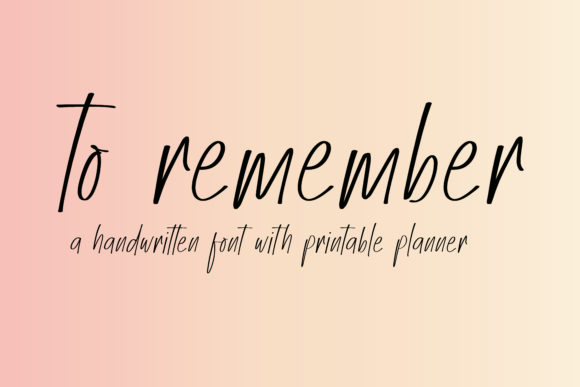
To Remember Font Review: A Versatile Script Handwritten Typeface
There is a specific moment in every branding project when the mood board is set, the color palette is locked, and you are staring at a blank artboard waiting for the typography to give the identity its soul. During a recent visual refresh for an artisanal skincare line, I found myself cycling through dozens of display typefaces that felt either too rigid or overly chaotic. That was when I tested To Remember, a simple and unique handwritten font that immediately shifted the tone of the entire project. As a brand designer who values authenticity over trend-chasing, I needed a typeface that felt human but maintained enough structure to function across packaging and digital platforms. This review shares my practical experience testing this script handwritten typeface in a real-world commercial context, moving beyond the preview image to see how it actually performs when the stakes are high.
To Remember for Wedding Invitations and Elegant Stationery Art
When evaluating To Remember against other premium fonts in the bridal and stationery niche, its balance of legibility and emotion stands out as its primary strength. The product description highlights its suitability for gorgeous wedding invitations and beautiful stationery art, and my testing confirms this is where the typeface truly shines without feeling dated. In a mockup for a luxury invitation suite, the letterforms possessed a natural rhythm that mimicked genuine penmanship rather than digital perfection. The connections between characters are fluid but not distracting, allowing the eye to glide across names and dates without stumbling over excessive swashes or illegible loops.
What makes this script handwritten style particularly effective for stationery is its versatility in hierarchy. I was able to use the font for the couple’s names at a large display size while scaling it down for venue details and RSVP information without losing clarity. Many decorative fonts fall apart below 14pt, but To Remember retained its character even at smaller sizes, provided there was adequate leading. For designers creating comprehensive stationery suites, this means you can maintain typographic consistency from the save-the-date card to the thank-you note without needing to introduce a secondary script for supporting text. The organic texture adds a layer of warmth that flat vector scripts often lack, making printed pieces feel tactile and intentional.
Using To Remember for Eye-Catching Social Media Graphics
Digital applications require a different set of performance metrics, and using To Remember for eye-catching social media graphics proved that this script handwritten face translates surprisingly well to screens. When designing Instagram carousel templates and Pinterest pins for the skincare brand, I needed a headline font that could stop the scroll without sacrificing readability on mobile devices. The x-height of To Remember is generous enough to remain crisp against busy photographic backgrounds, which is a common failure point for more delicate calligraphy fonts. I tested white text overlays on textured product photography and dark text on minimalist beige backgrounds; in both scenarios, the weight distribution held up without pixelating or blurring.
For content creators and social media managers, the "simple" aspect of this typeface is actually a functional asset. Complex scripts often compete with visual content, but To Remember acts as a supportive frame. It adds personality to quotes, announcements, and promotional graphics without overwhelming the message. During my testing, I found that pairing it with a clean geometric sans serif created a modern editorial look that felt approachable yet polished. This combination is essential for brands that want to convey handmade authenticity while maintaining professional digital standards. If you are designing templates for Canva or Adobe Express, this font provides that bespoke aesthetic that elevates generic layouts into cohesive brand assets.
To Remember in Packaging Design and Brand Identity Systems
The true test of any display typeface is its application in physical packaging design, where To Remember demonstrated remarkable adaptability within a broader brand identity system. On a 2oz glass dropper bottle label, space is at a premium, and legibility is non-negotiable. I used the font for the product name "Botanical Renewal Serum," and the result was a label that felt crafted rather than manufactured. Unlike highly ornate scripts that require significant horizontal space, the relatively condensed nature of To Remember allowed for longer product names without awkward tracking adjustments. This spatial efficiency is crucial for SKUs with varying name lengths, ensuring the packaging system remains consistent across an entire product line.
Beyond the label itself, I integrated this script handwritten typeface into the unboxing experience, printing it directly onto tissue paper and shipping boxes. The font’s inherent warmth reinforced the brand’s artisanal positioning at every touchpoint. However, designers should note that while To Remember excels as a primary display font for logos and headlines, it should not be used for regulatory text, ingredient lists, or body copy. Its personality is too strong for dense information blocks. Instead, pair it with a neutral serif or sans serif for technical details. This division of labor ensures compliance and readability while letting To Remember do the heavy lifting of emotional connection and brand recognition.
Font Pairing Strategies and Commercial Licensing Considerations
Successfully integrating To Remember into professional work requires thoughtful font pairing and strict attention to licensing, as these factors determine the long-term viability of your design assets. Because this typeface has such a distinct, organic voice, it pairs best with understated companions that provide contrast without conflict. During the branding project, I found that a low-contrast modern serif created a sophisticated, timeless feel suitable for luxury goods, while a rounded geometric sans serif leaned into a friendlier, more accessible vibe. Avoid pairing To Remember with other script fonts; the competing flourishes create visual noise and dilute the impact of both typefaces. Let this script handwritten font be the singular expressive element in your typographic hierarchy.
Before finalizing any client deliverables, verifying the commercial license for To Remember is a mandatory step that protects both the designer and the business owner. While the font is incredibly versatile for wedding invitations, stationery art, and social media, licensing terms can vary significantly regarding logo usage, merchandise, webfont embedding, and print-on-demand products. Always review the specific EULA (End User License Agreement) included with your purchase. If you are designing for a client who plans to scale their business, ensure the license covers their projected revenue tier and intended distribution channels. Investing in the correct commercial license upfront prevents legal complications later and supports the type designer who created this valuable tool. When used correctly and legally, To Remember offers a rare combination of artistic charm and functional reliability that justifies its place in a professional designer’s toolkit.